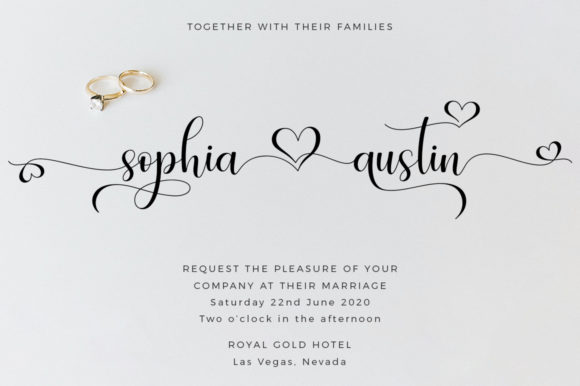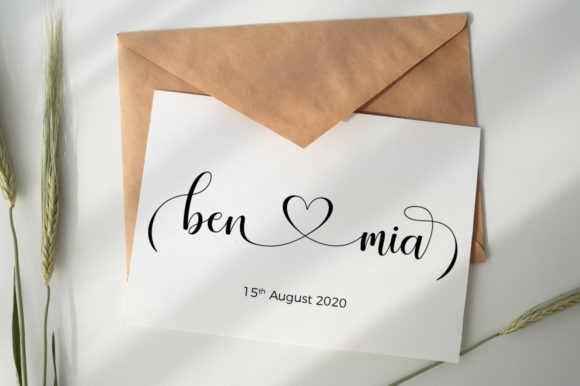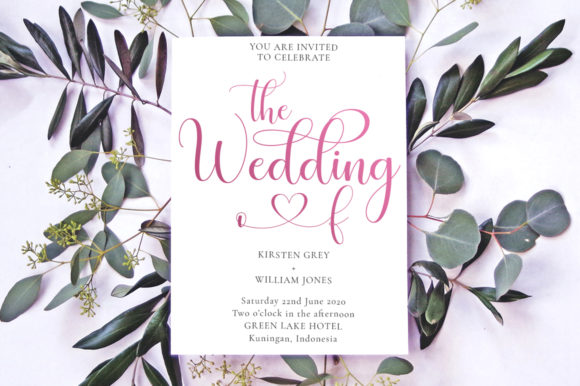
Introduction to Short Party Font
Short Party is a romantic and sweet calligraphy typeface with characters that dance along the baseline.
Key Features of Short Party Font
Why Choose Short Party Font?
Short Party Font offers exceptional quality and versatility, making it a valuable addition to your design toolkit. Whether you’re creating for personal projects or commercial use, Short Party Font delivers professional results.